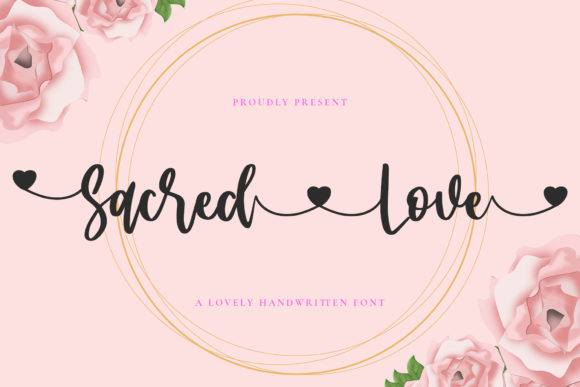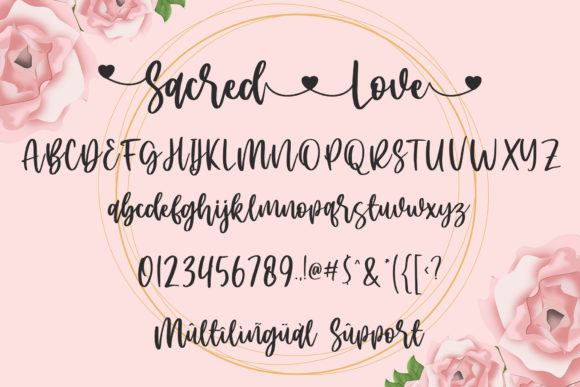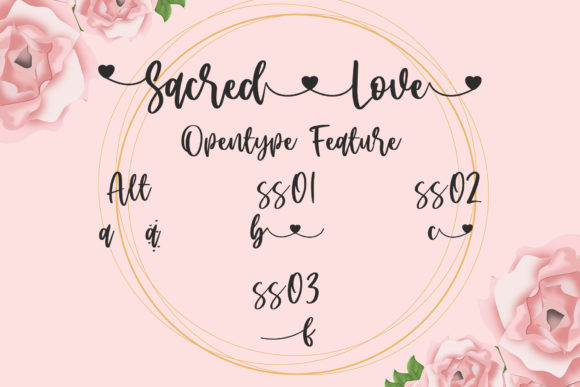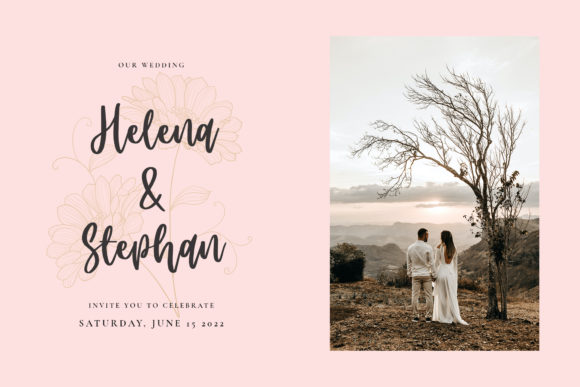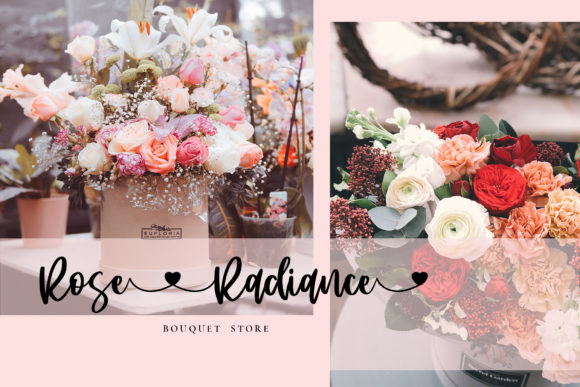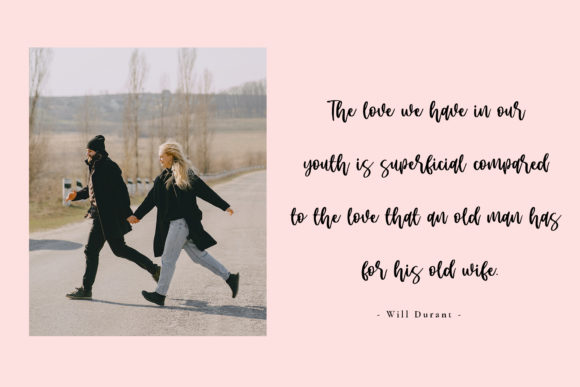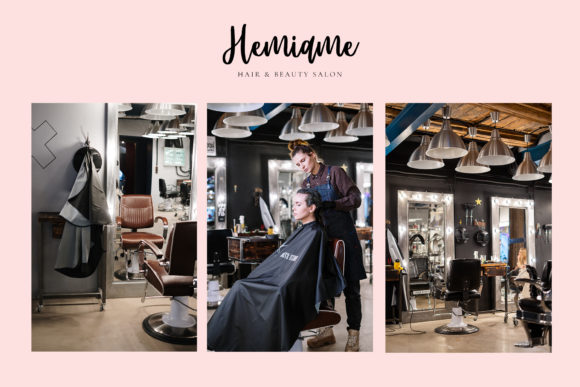
Sacred Love Font
About Sacred Love Font
Sacred Love is a romantic handwritten font. Get inspired by its gorgeous heart-themed characters and create stunning art and lovely greeting cards!